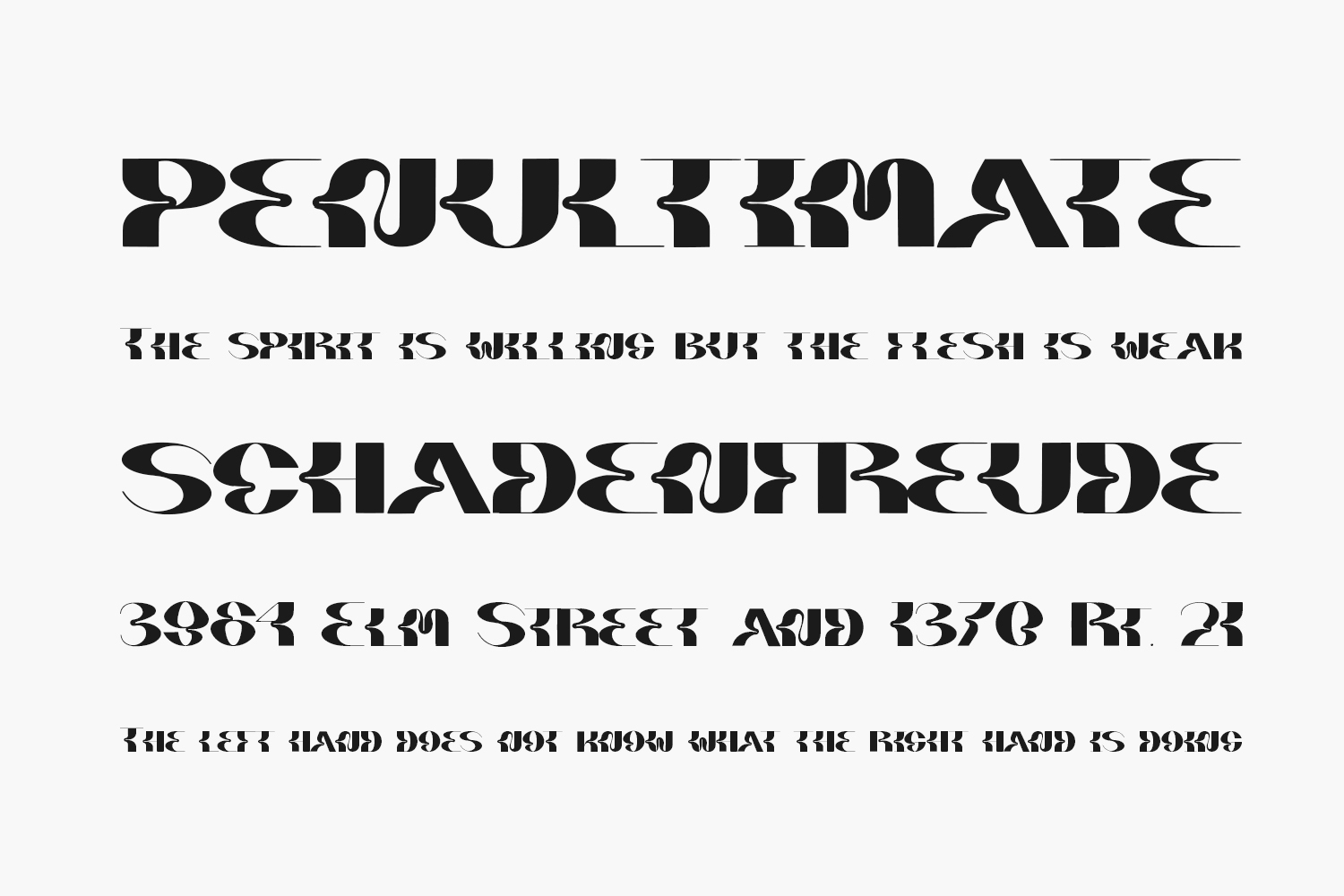
Kodaro Free Font – Bold Display Typeface with a Whimsical Style
Kodaro is a modern, bold, and whimsical display font designed by Vultype to bring unique character and visual impact to your creative projects. With its uniquely shaped letterforms and strong presence, this free decorative typeface works perfectly for crafting memorable logos, posters, branding materials, and more. Available in OTF format — ideal for designers seeking a standout font that adds personality and strength to their visuals.
Why Choose Kodaro?
- Bold & Unique Style: Combines playful shapes with strong contrast for a distinctive, attention-grabbing look.
- Ideal for Display Design: Perfect for large text applications like posters, billboards, or animated headers.
Where to Use Kodaro?
Kodaro shines across a variety of creative applications:
- Logos & Branding: Adds personality to brand identities for lifestyle brands, kids’ products, or boutique studios.
- Posters & Flyers: Perfect for event banners, concert posters, or product launch visuals needing high visibility.
- Social Media Graphics: Creates bold text overlays for Instagram Stories, TikTok videos, or YouTube thumbnails.
- Product Packaging: Brings uniqueness to toy packaging, candy wrappers, or novelty labels.
- Editorial Headers: Stands out in magazine covers, blog headers, and digital banners with a fun twist.
Design Tips with Kodaro
To get the most from Kodaro, pair it with minimalist layouts and contrasting colors to let the font shine. Use this bold type for short, impactful slogans or titles where legibility isn’t compromised. For digital use, combine with textures or glowing effects to enhance its quirky appeal. Try our interactive font preview tool below to test Kodaro with your own text before downloading!